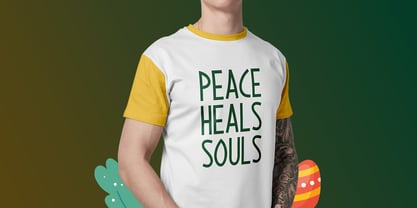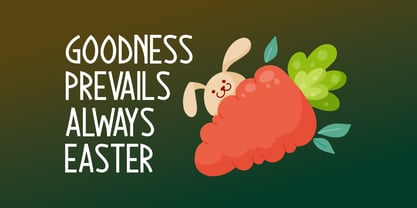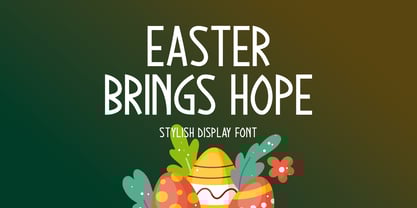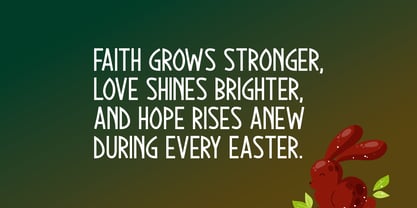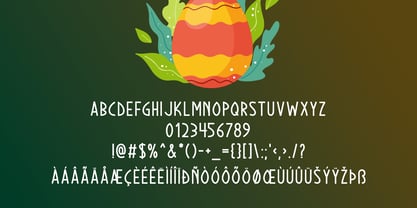
Easter Brings Hope
by Seemly Fonts
The Easter Brings Hope Font Family was designed by Md Shohail Bhuian and published by Seemly Fonts. Easter Brings Hope contains 1 styles.
Easter Brings Hope is a sophisticated and stylish display font that adds a touch of elegance to any design project. Whether you're creating stationery, logos, t-shirts, print materials, website headers, or promotional items like flyers and posters, this font ensures a visually striking and professional look. Its versatility also makes it ideal for music covers, image sliders, photo frames, and much more. Elevate your designs with the unique charm of Easter Brings Hope.